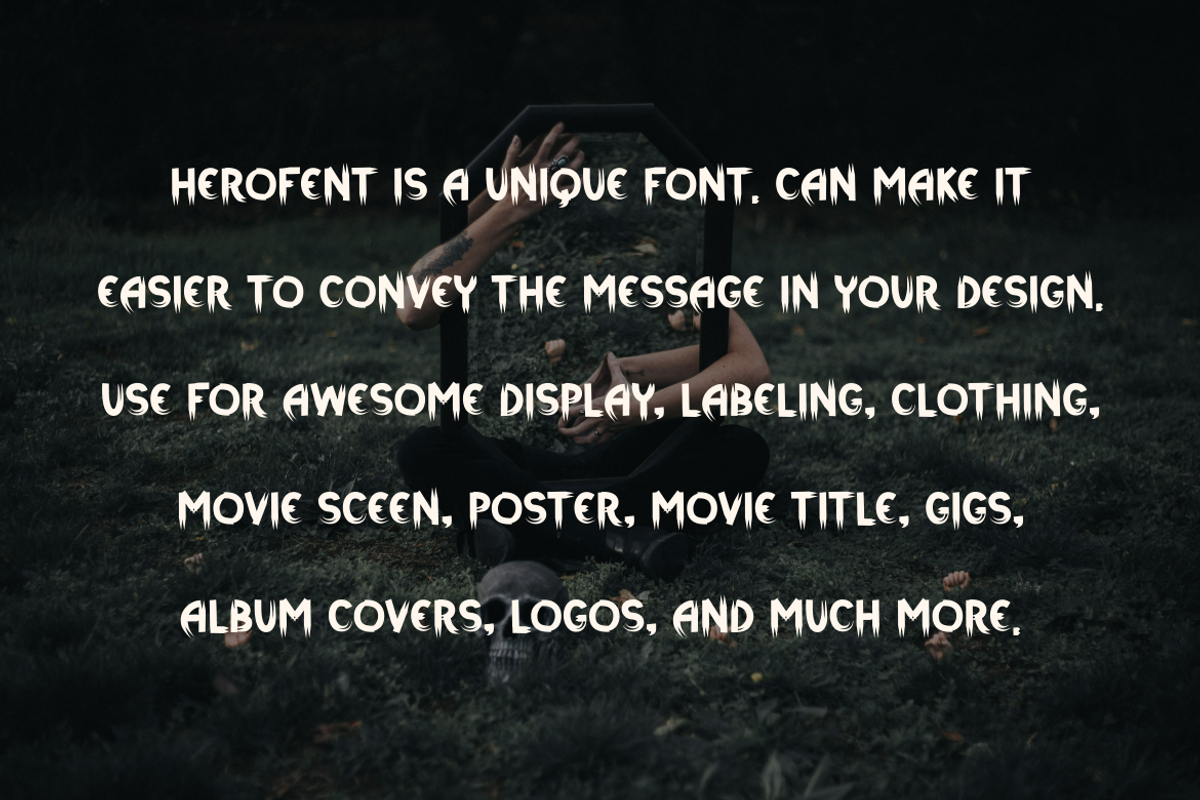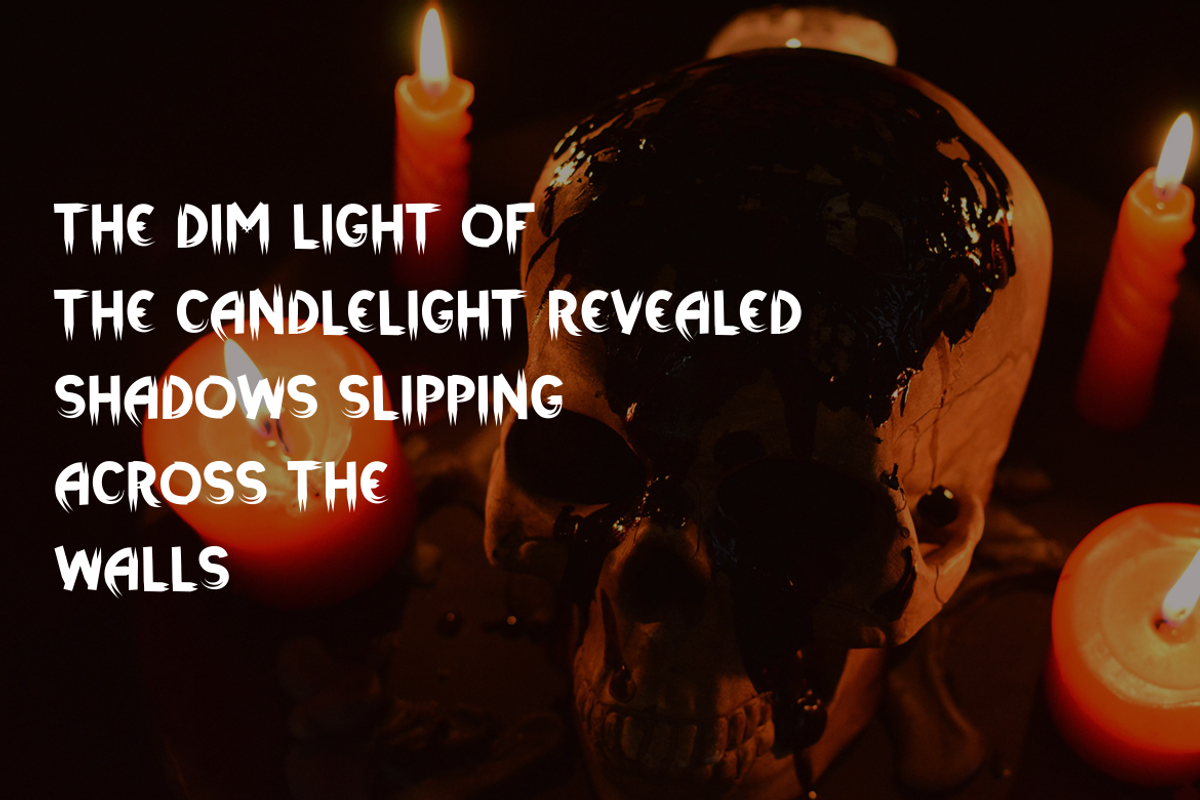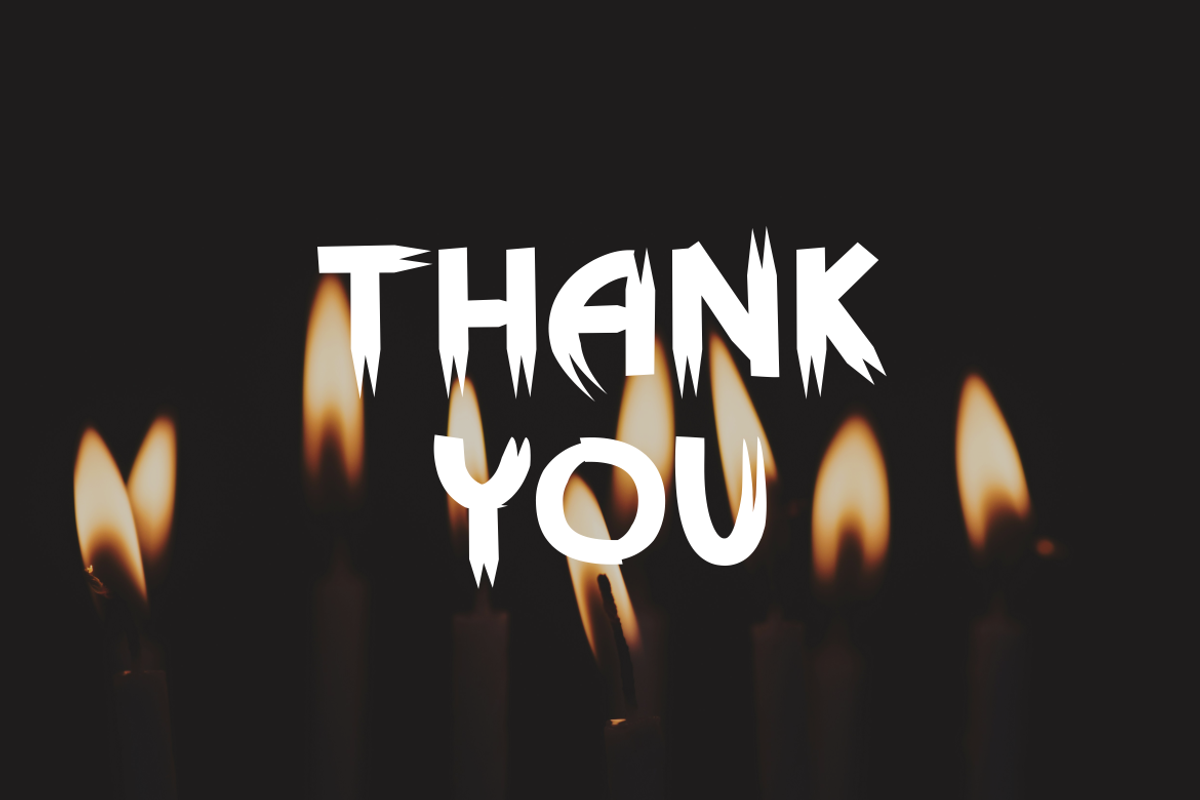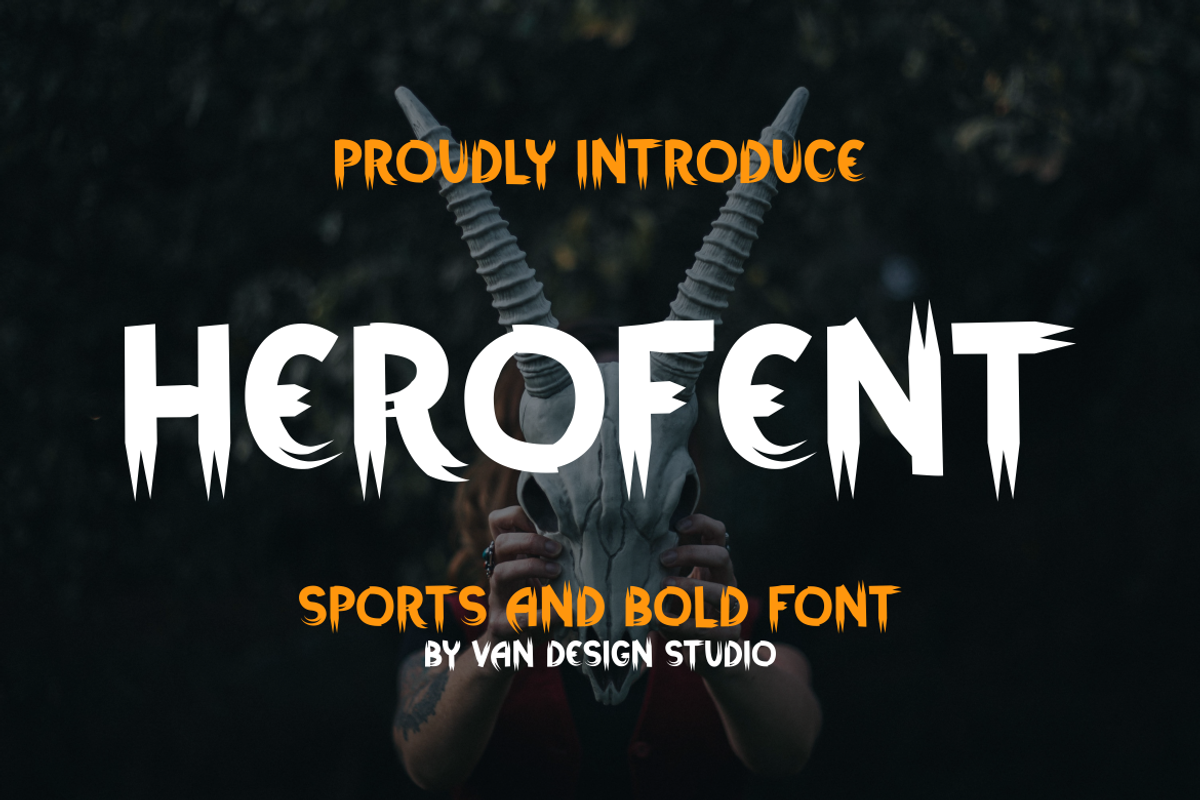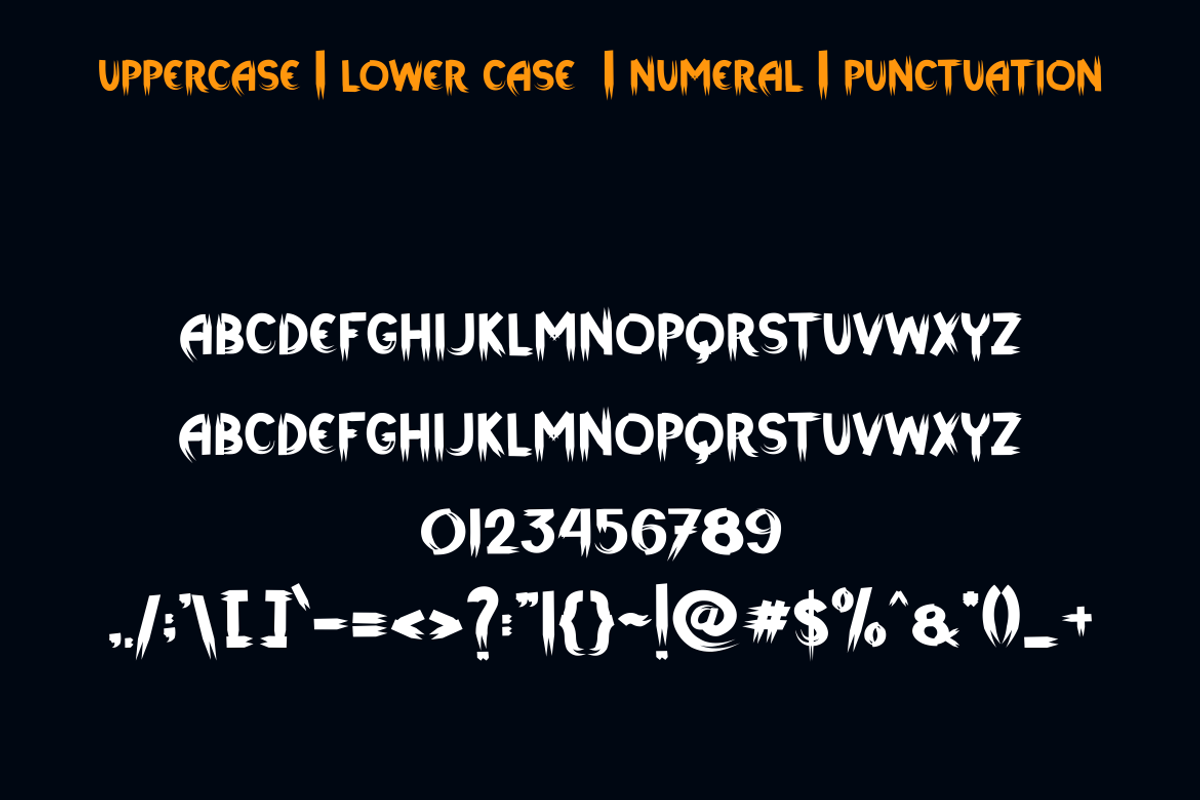
HEROFENT
HEROFENT is a unique font. Can make it easier to convey the message in your design. Use for awesome display, labeling, clothing, movie sceen, poster, movie title, gigs, album covers, logos, and much more.